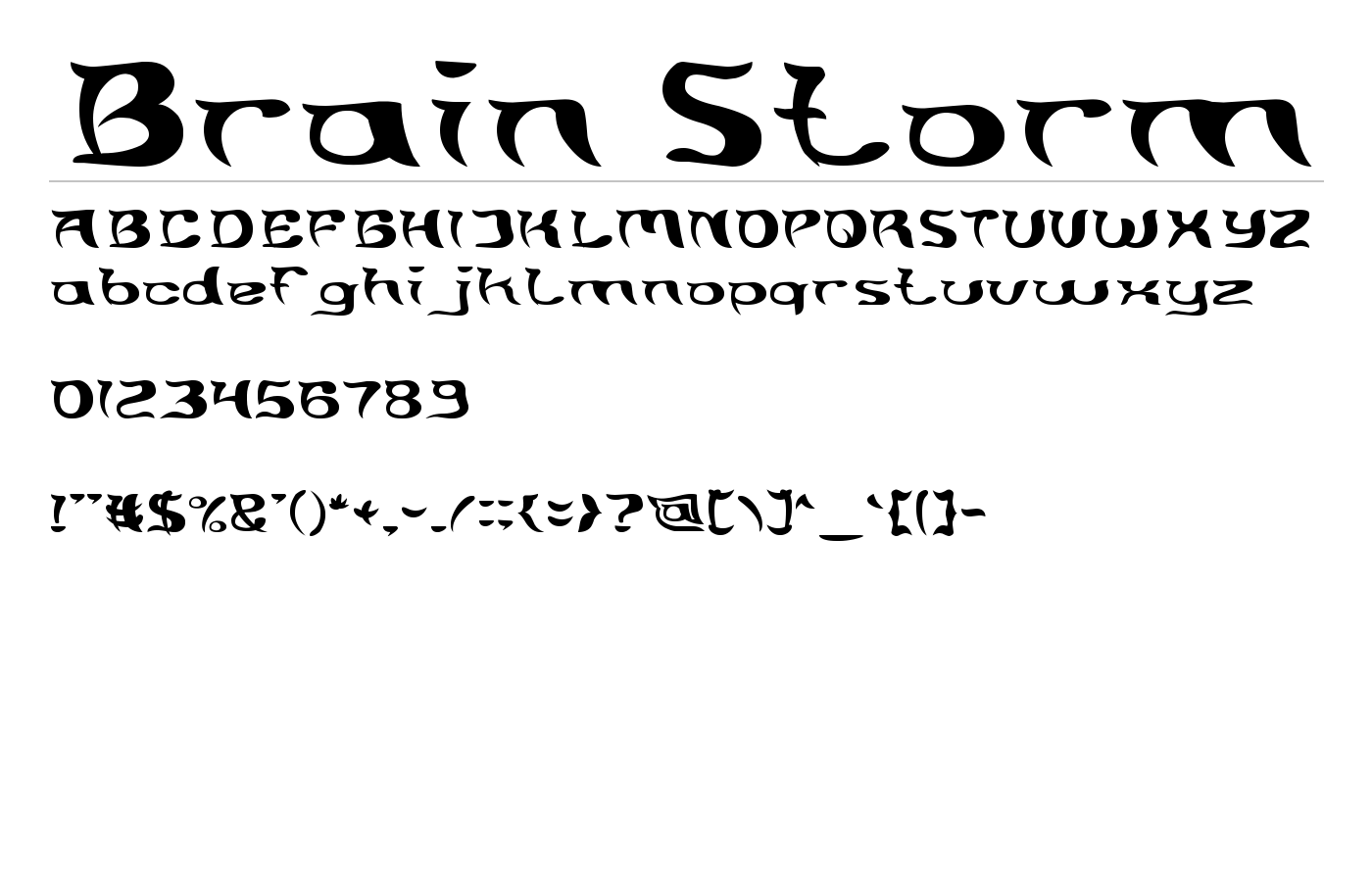
Brain Storm is a bold, decorative serif font with unique, artistic strokes that create a playful and slightly mysterious vibe. Its medium weight and quirky letterforms, featuring angular serifs and imaginative curves, make it perfect for attention-grabbing titles, creative branding, and themed designs that seek a distinctive, unconventional edge. This font works well where individuality and flair are needed, such as posters, logos, and packaging.
Brain Storm Font
About Brain Storm Font